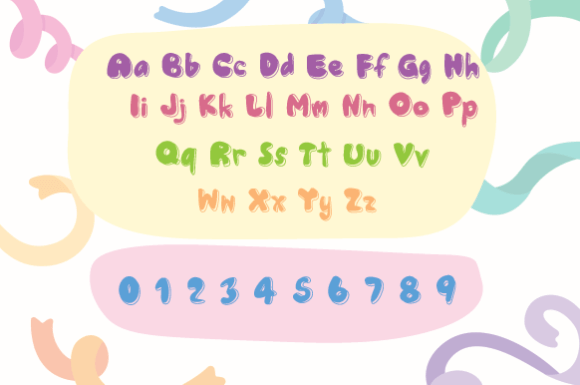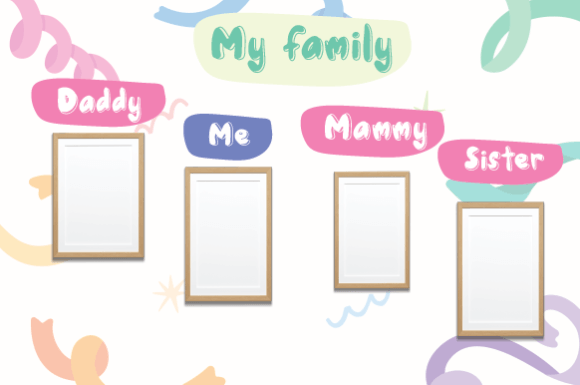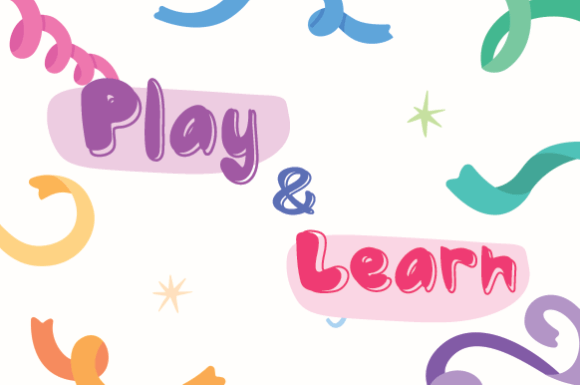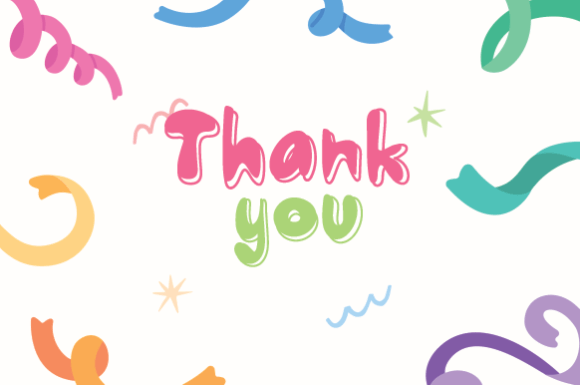
Designing with Joy: The Magic of Kids Font
Have you ever been brainstorming a new project and suddenly, a burst of creativity hits you? Perhaps it’s the image of a bright, sunny day or a playful character that sparks an idea. For many designers, this is the moment when inspiration strikes, and the possibilities become endless. This is exactly what happened when we discovered Kids Font, a fun and quirky display font that brings a smile to our faces.
Designed specifically for use on cheerful topics, Kids Font is perfect for children’s themed designs, from nursery decor to kid-friendly advertising campaigns. Its playful nature makes it a valuable addition to any designer’s toolkit, offering a unique way to convey joy and excitement in their work.
Kids Font Key Features
- Unique Characteristics: Designed with child-friendly shapes and letterforms, making it easy to read and recognize for young children
Designer Review: Kids Font
Kids Font is a fun, playful typeface designed specifically for children’s content. ✨ I appreciate the creative approach to letterforms, with rounded edges and whimsical flourishes. The font is highly legible, even at small sizes, making it perfect for digital media and children’s books.
- ✨ Excellent legibility, even at small sizes
- ✨ Highly customizable, with multiple weights and styles
- ✨ Suitable for a wide range of children’s content, from educational materials to entertainment
However, there are some limitations to consider. ⚠️ The font’s playful nature may not be suitable for all types of content, such as formal educational materials or professional publications. Additionally, the font’s weight and style options may not be as extensive as other typefaces.
- ⚠️ May not be suitable for formal or professional content
- ⚠️ Limited weight and style options compared to other typefaces
Overall, I think Kids Font is a great choice for children’s content. It’s highly legible, customizable, and fun to use. While it may not be suitable for all types of content, it’s a great option for educational materials, entertainment, and other children’s projects.
Tips for Getting the Most Out of Kids Font
Use Kids Font for titles, headings, and short paragraphs to add a playful touch to your designs. Experiment with different font sizes and colors to create visual interest. Consider pairing Kids Font with a clean, sans-serif font for body text.
Kids Font is perfect for:
– Children’s book covers and illustrations
– Educational materials and worksheets
– Party invitations and decorations
– Branding for kids-related businesses and products
Alternatives to “Kids Font” for Designers
Kids Font is a sans-serif font designed for use in children’s materials, such as educational books, websites, and apps. However, designers may be looking for alternative fonts that offer a similar feel while providing more flexibility and versatility. Here are a few options to consider:
Comic Sans
Comic Sans is a sans-serif font designed to resemble handwritten text. It is often used in informal settings, such as blogs, social media, and children’s materials. While it is similar to Kids Font in its playful and casual feel, Comic Sans is generally considered to be more informal and less suitable for formal or professional applications. Use Comic Sans when you want to add a touch of whimsy and personality to your design.
Alex Brush is a script font designed to resemble handwritten text. It is often used in creative and artistic applications, such as book covers, posters, and websites. While it is more elegant and sophisticated than Kids Font, Alex Brush still has a playful and childlike feel. Use Alex Brush when you want to add a touch of personality and whimsy to your design.
Great Vibes is a sans-serif font designed to be highly legible and readable. It is often used in digital applications, such as websites, apps, and e-books. While it is more formal and professional than Kids Font, Great Vibes still has a friendly and approachable feel. Use Great Vibes when you want to create a clean and modern design that is easy to read.